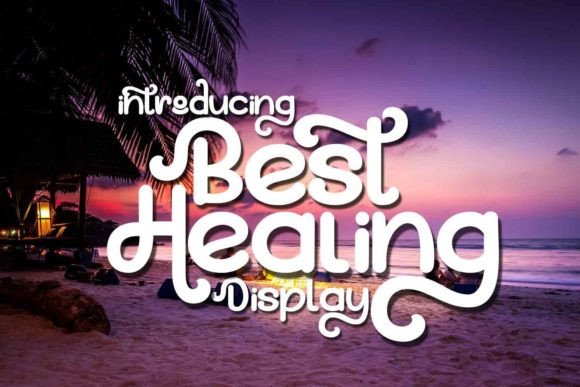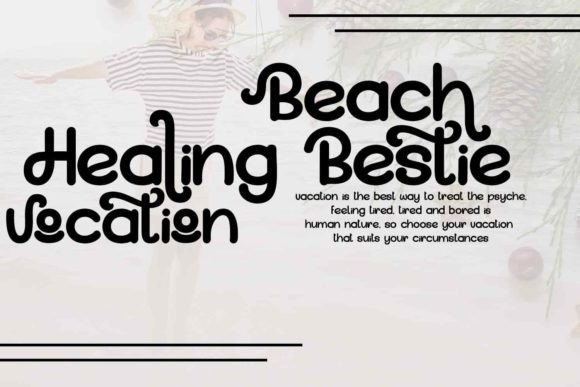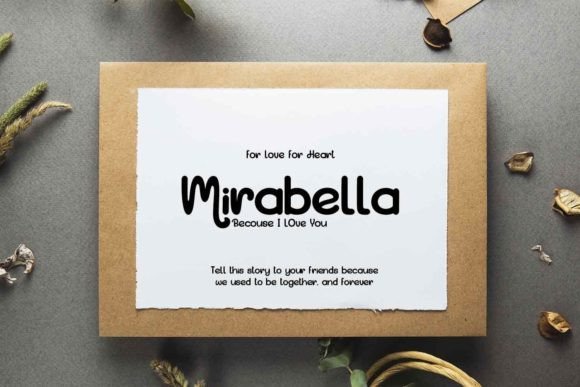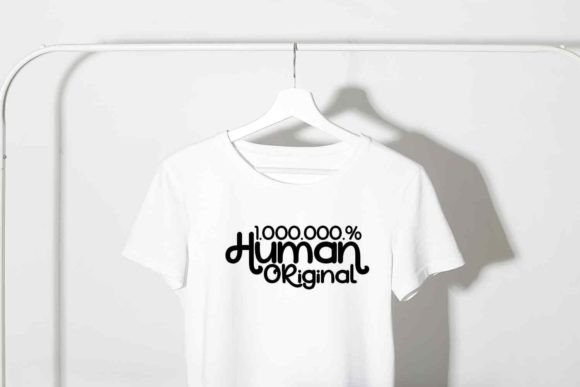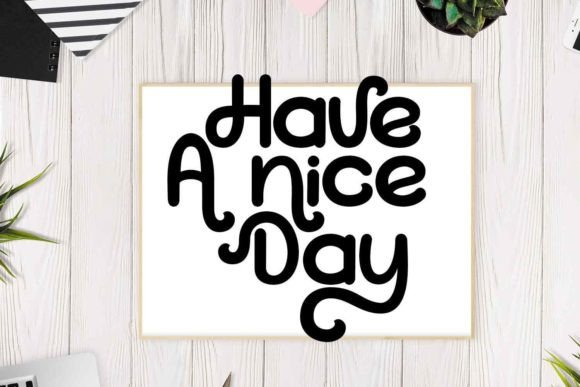
Discover the Best Healing Font for Your Design Needs
Are you on the hunt for a font that can add a touch of whimsy and playfulness to your designs? Look no further than the Best Healing font! This bold and cute font is perfect for designers and crafters who want to create a casual yet stylish impression. In this article, we’ll dive into the world of Best Healing and explore its features, alternatives, and uses.
What is Best Healing Font?
Best Healing is a unique font that boasts a simple yet charming appearance. Its bold and cute design makes it perfect for a wide range of applications, from greeting cards and social media expressions to invitations and more. The font’s casual vibe is sure to create a different feel when used in your designs, making it an excellent choice for those who want to add a personal touch.
Key Features of Best Healing Font
- PUA Encoded: Best Healing font is PUA encoded, which means you can access all of the glyphs and swashes with ease. This feature makes it simple to use and customize the font to suit your design needs.
- Cute Appearance: The font’s cute and playful design makes it perfect for designs that require a touch of whimsy and fun.
- Versatile: Best Healing font is suitable for all types of designs, including greeting cards, social media expressions, invitations, and more.
Alternatives to Best Healing Font
While Best Healing font is an excellent choice for designers, there are several alternatives that you can use to add a stylish impression to your designs. Some popular alternatives include:
- Pacifico: A beautiful script font that is perfect for designs that require a touch of elegance.
- Great Vibes: A fun and playful script font that is great for designs that require a touch of whimsy.
- Lobster: A bold and stylish script font that is perfect for designs that require a touch of sophistication.
Uses of Best Healing Font
Best Healing font is a versatile font that can be used in a wide range of applications, including:
- Greeting Cards: The font’s cute and playful design makes it perfect for greeting cards, including birthday cards, holiday cards, and more.
- Social Media Expressions: Use Best Healing font to add a touch of personality to your social media expressions, including Facebook posts, Instagram captions, and more.
- Invitations: The font’s elegant and stylish design makes it perfect for invitations, including wedding invitations, birthday party invitations, and more.
- Branding: Best Healing font can be used in branding applications, including logos, packaging, and more.
Tips for Using Best Healing Font
Here are some tips for using Best Healing font in your designs:
- Experiment with Different Sizes: Best Healing font looks great in a variety of sizes, so don’t be afraid to experiment with different sizes to find the one that works best for your design.
- Pair with Other Fonts: Best Healing font pairs well with other fonts, including script fonts, sans-serif fonts, and more.
- Use in Combination with Images: The font’s cute and playful design makes it perfect for use in combination with images, including illustrations, photographs, and more.
In conclusion, Best Healing font is a versatile and stylish font that is perfect for designers and crafters who want to add a touch of whimsy and playfulness to their designs. With its cute appearance, PUA encoding, and ease of use, it’s an excellent choice for a wide range of applications. Whether you’re creating greeting cards, social media expressions, or branding materials, Best Healing font is sure to make your designs stand out.